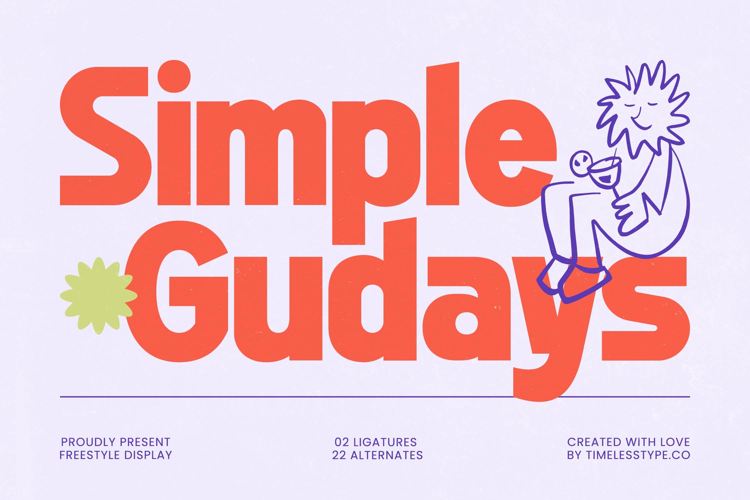
Simple Gudays - Freestyle Display Sans Serif
Simple Gudays
Simple Gudays Italic
Simple Gudays - Freestyle Display Sans Serif is an unapologetically heavy display sans serif that masterfully combines substantial weight with surprisingly soft, friendly terminals. Its immense, approachable presence creates a vibrant aesthetic that is both retro-inspired and perfectly contemporary. This font is meticulously crafted to be the singular focal point of any creative project, guaranteeing that your crucial message is not just seen, but instantly and memorably absorbed by the viewer.